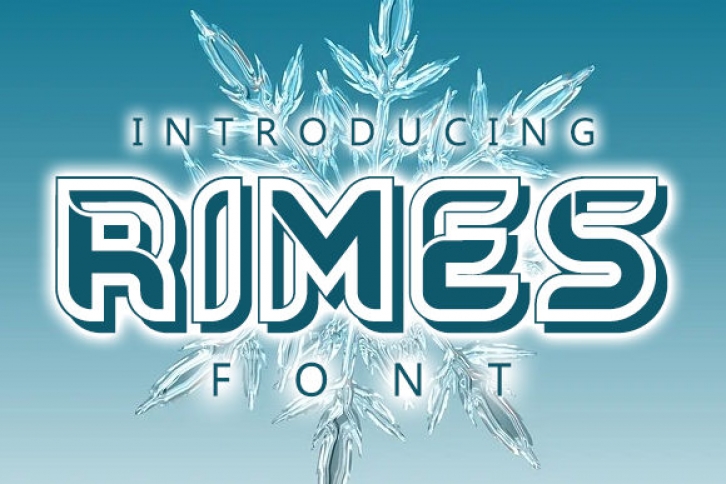
Rimes is an awesome and stylish display font that will give your designs a unique feel. Use it to make your ideas even more realistic and create spectacular designs!